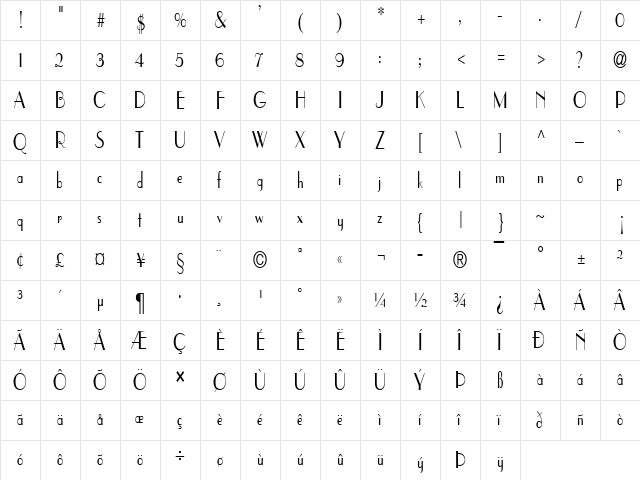
ElyseeCondensed Normal
Design Context for ElyseeCondensed Typeface
ElyseeCondensed is a composed and adaptable typeface that performs quietly and consistently across a wide range of design contexts. The condensed width makes it efficient for tight spaces without sacrificing legibility.